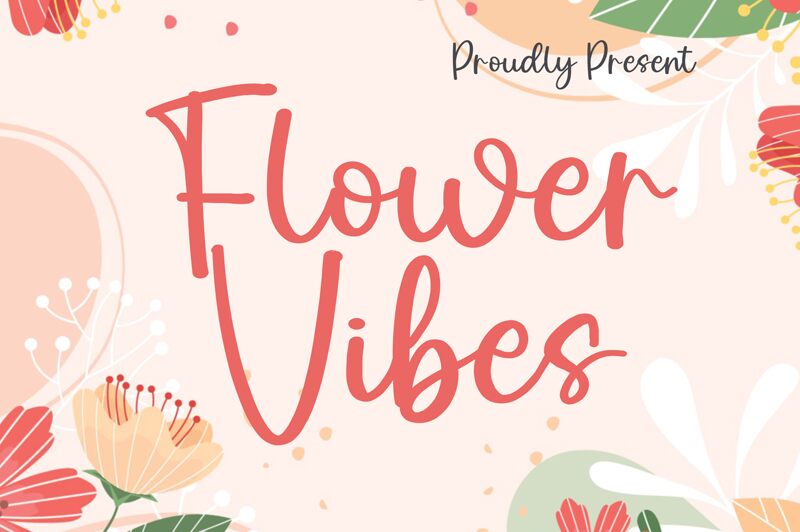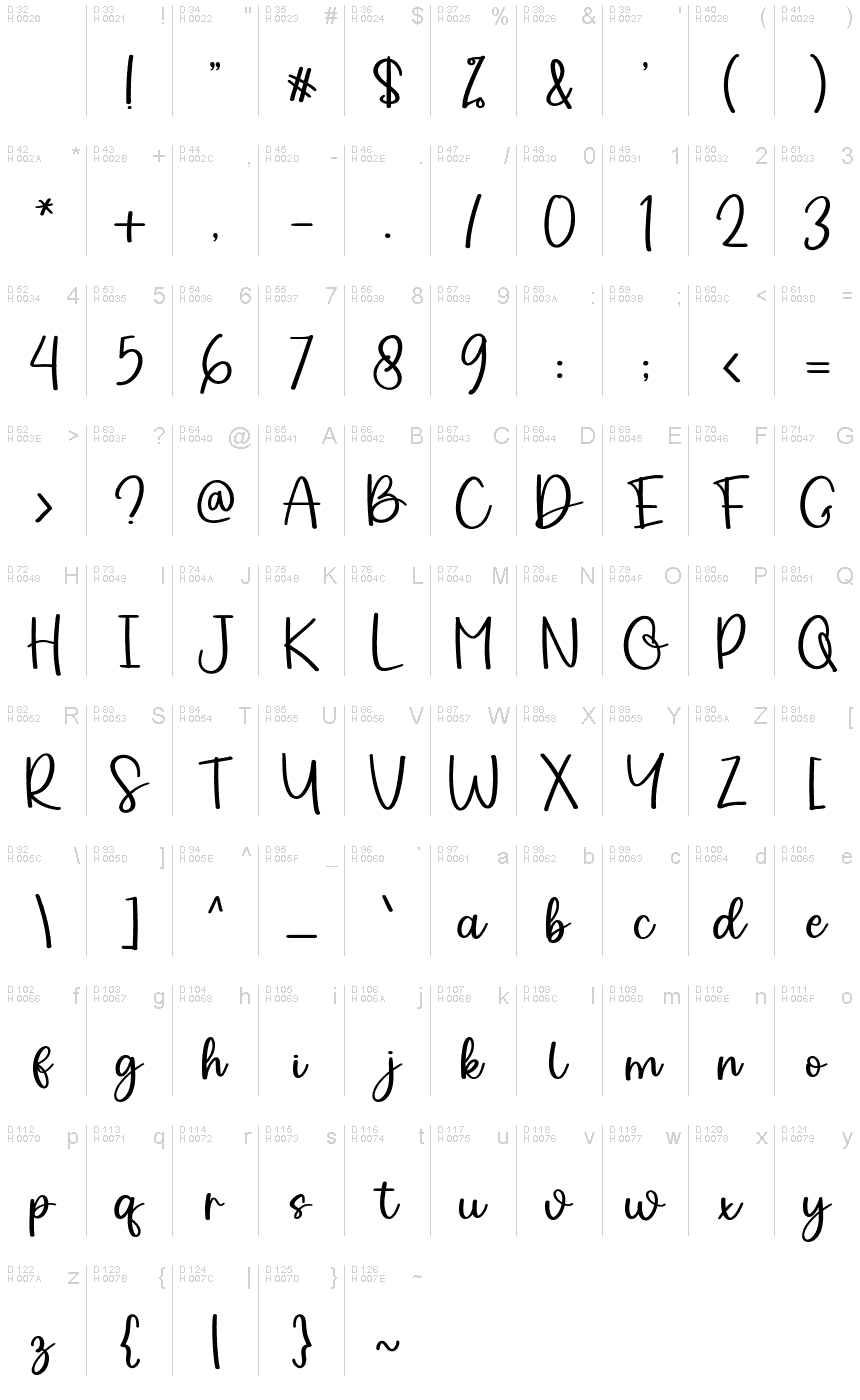
Flower vibes
Flower Vibes, designed by Erlina Graphic, is a captivating semi-light handwritten font that exudes whimsical charm. With its graceful strokes and organic feel, this font is perfect for creating enchanting wedding invitations, delicate stationery designs, or romantic love letters. Its playful yet elegant style also makes it an excellent choice for branding boutique shops, beauty salons, or artisanal cafes seeking a touch of feminine allure. Let Flower Vibes transport your projects to a world of blooming creativity and evoke feelings of joy and romance with every letter.